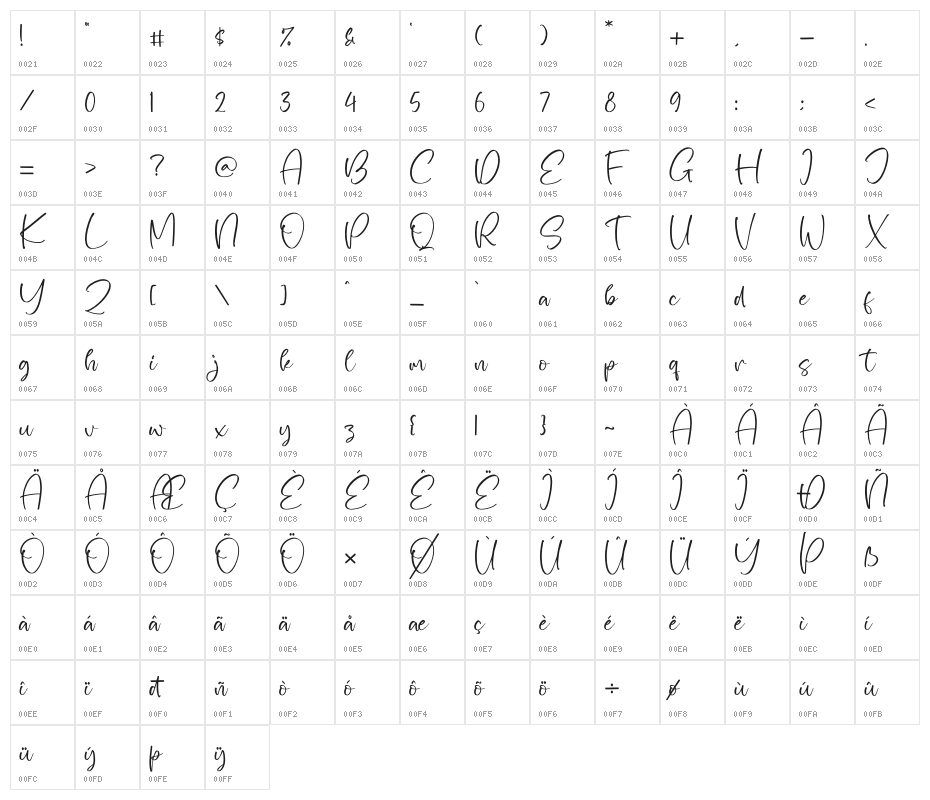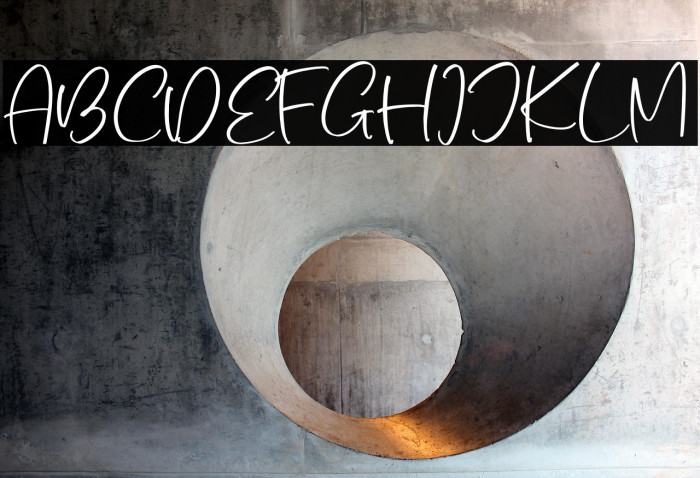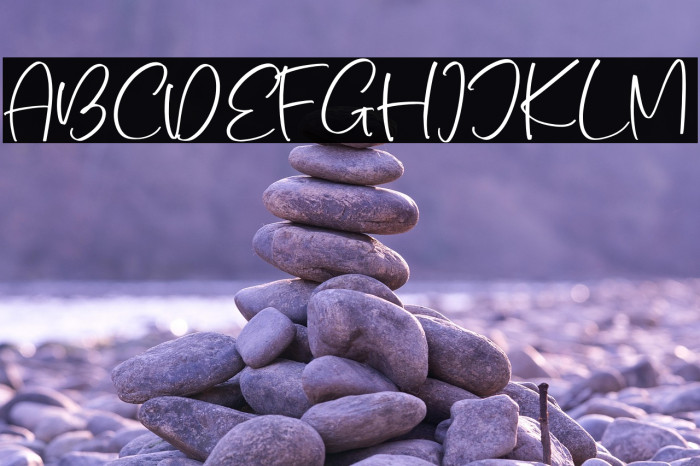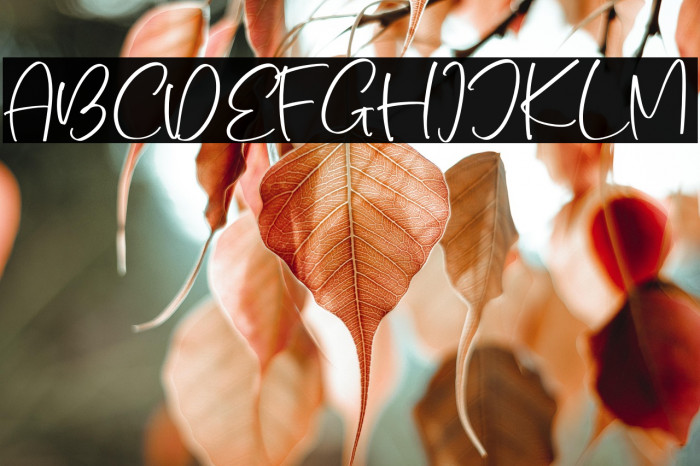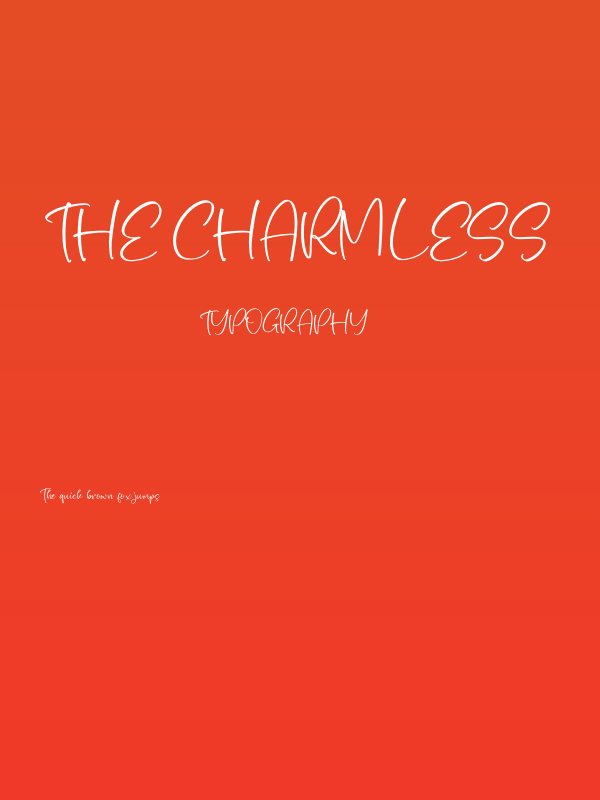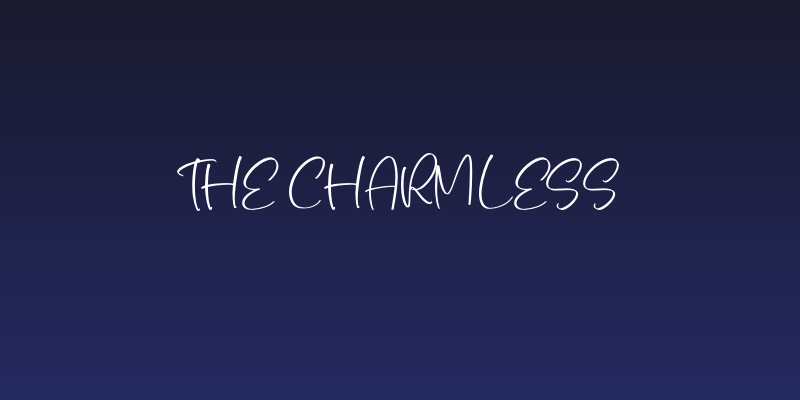
The Charmless Font
The Charmless Description
This font features a playful and casual handwritten style, characterized by its fluid and dynamic strokes. The uppercase letters are tall and slightly narrow, giving a sense of elegance and sophistication, while the lowercase letters maintain a consistent flow with a touch of whimsy. The numbers are clear and legible, matching the overall aesthetic. Special characters are creatively integrated, maintaining the font's cohesive look. This font is perfect for projects that require a personal touch, such as invitations, greeting cards, or branding materials that aim to convey a friendly and approachable vibe.
| Overall Style | Casual, Playful |
| Use Case | Headlines, Logos, Invitations |
| Proposed Projects | Ideal for invitations, greeting cards, personal branding, and creative projects. |